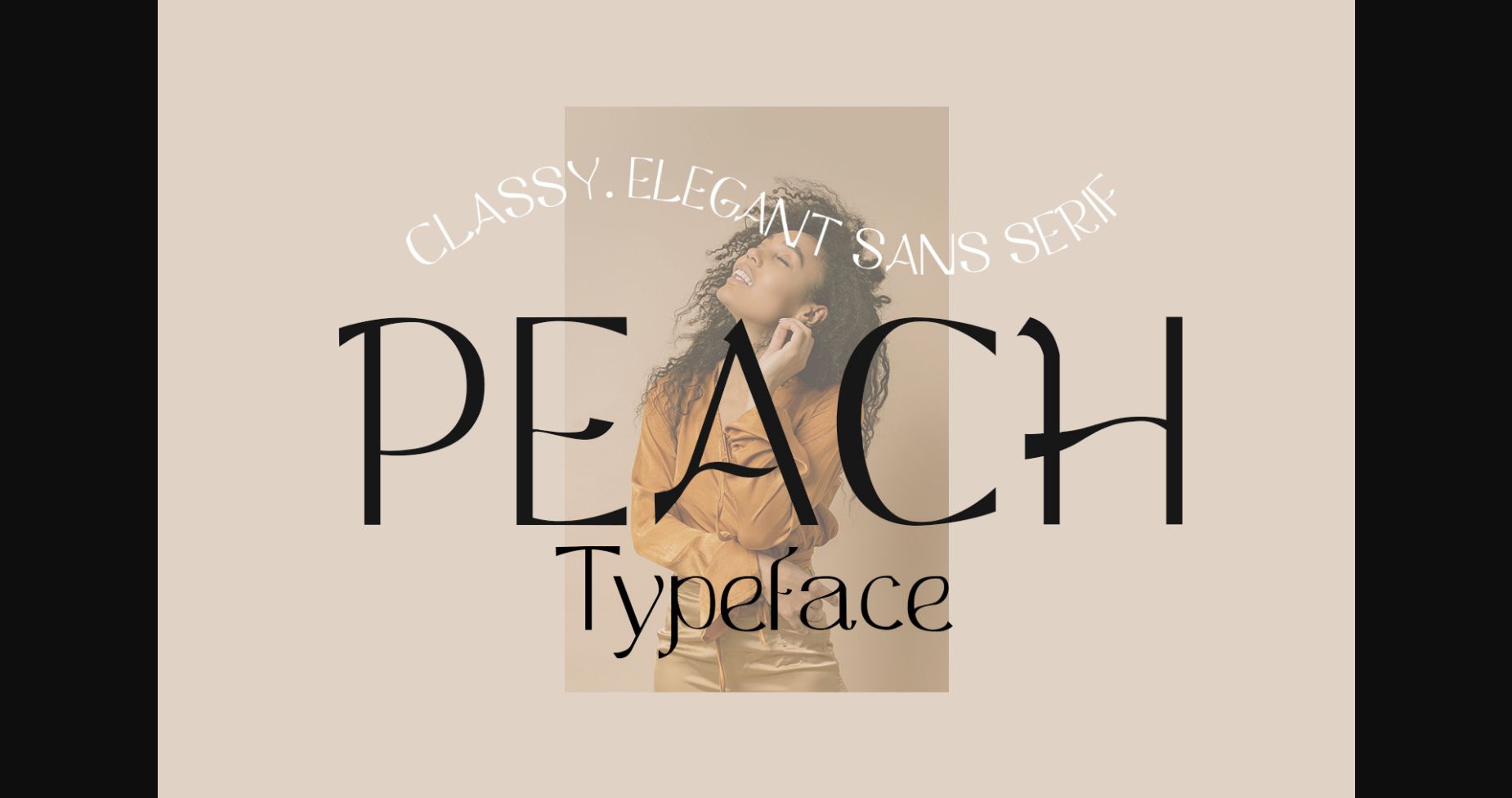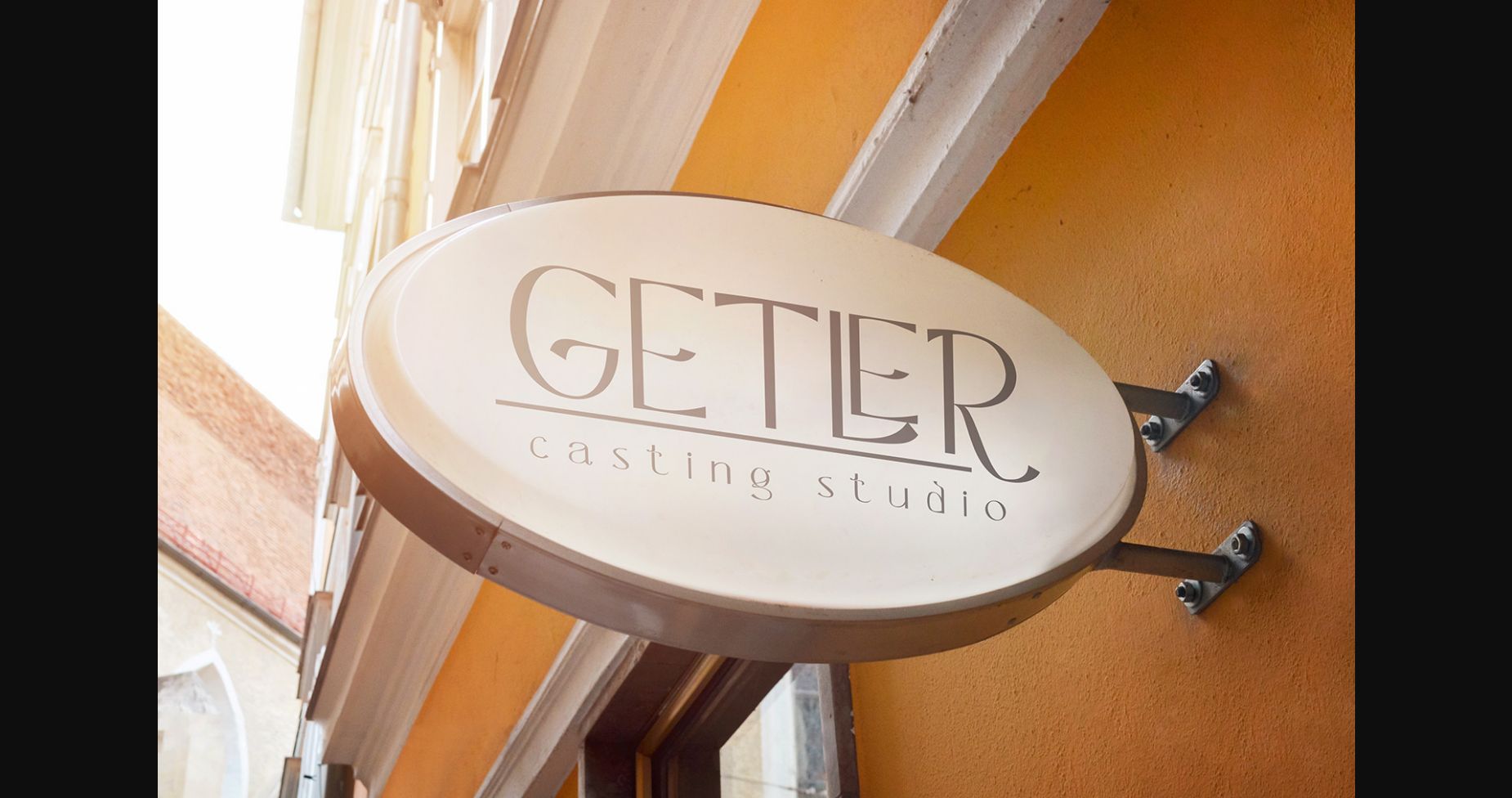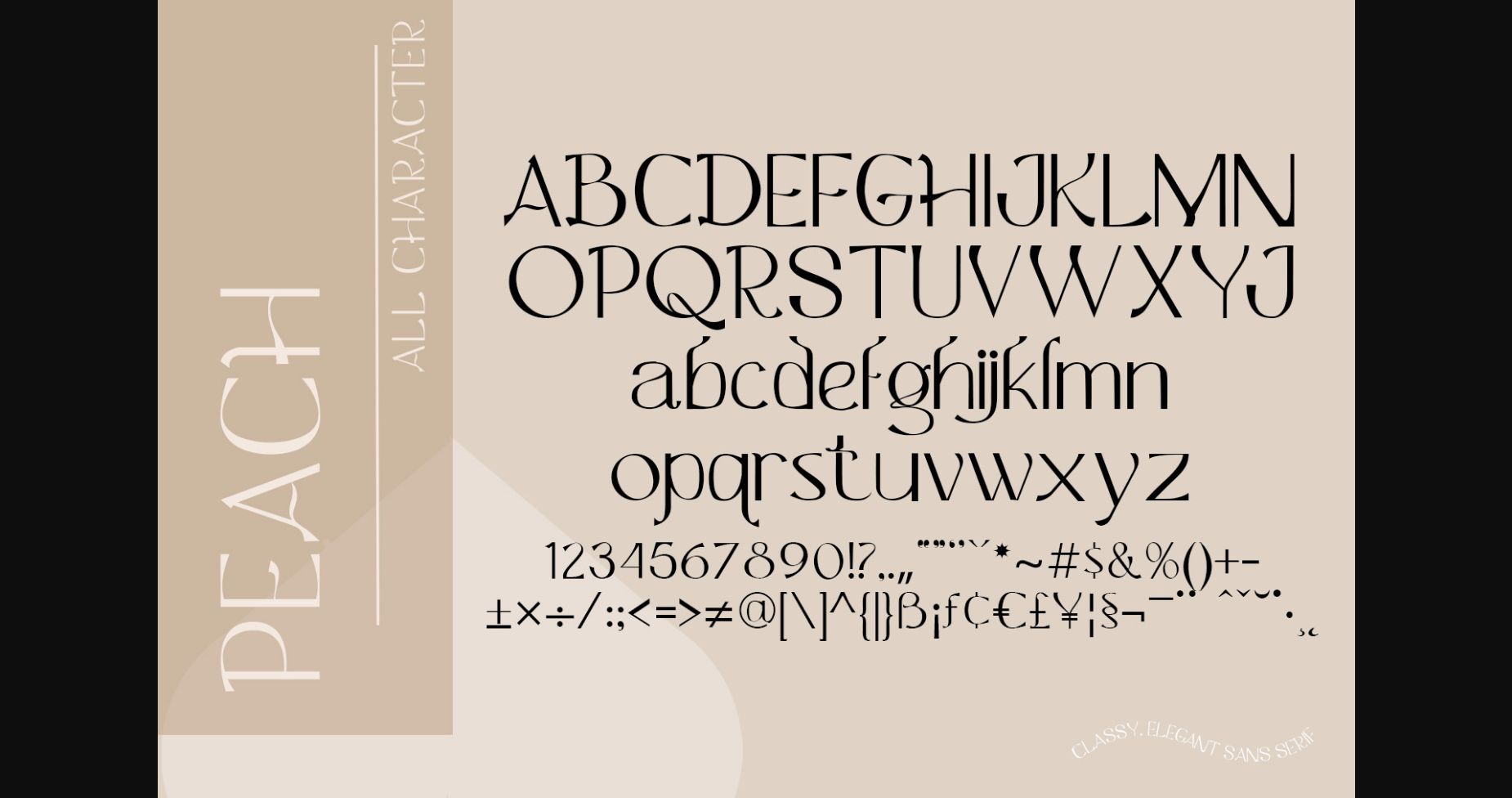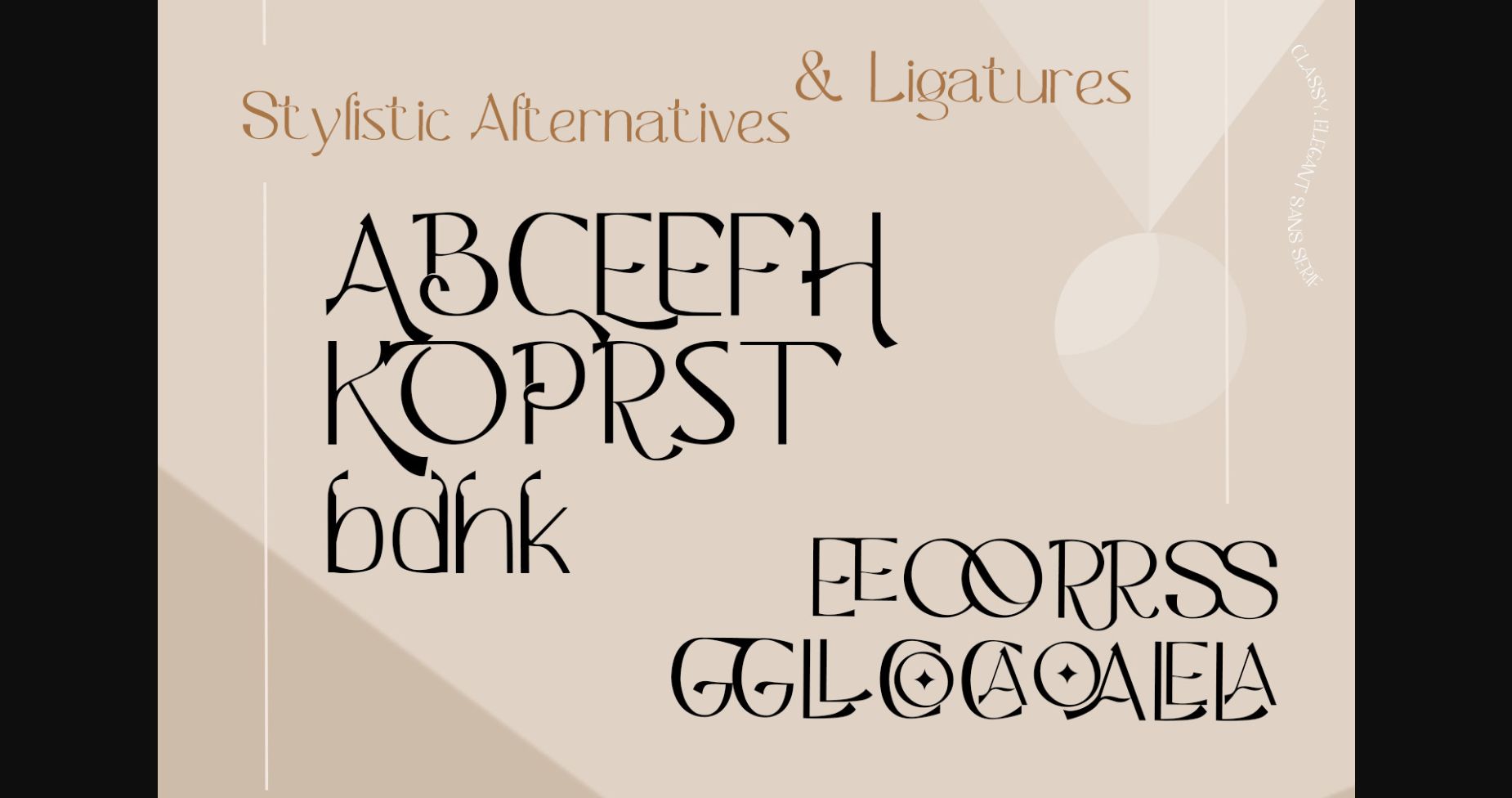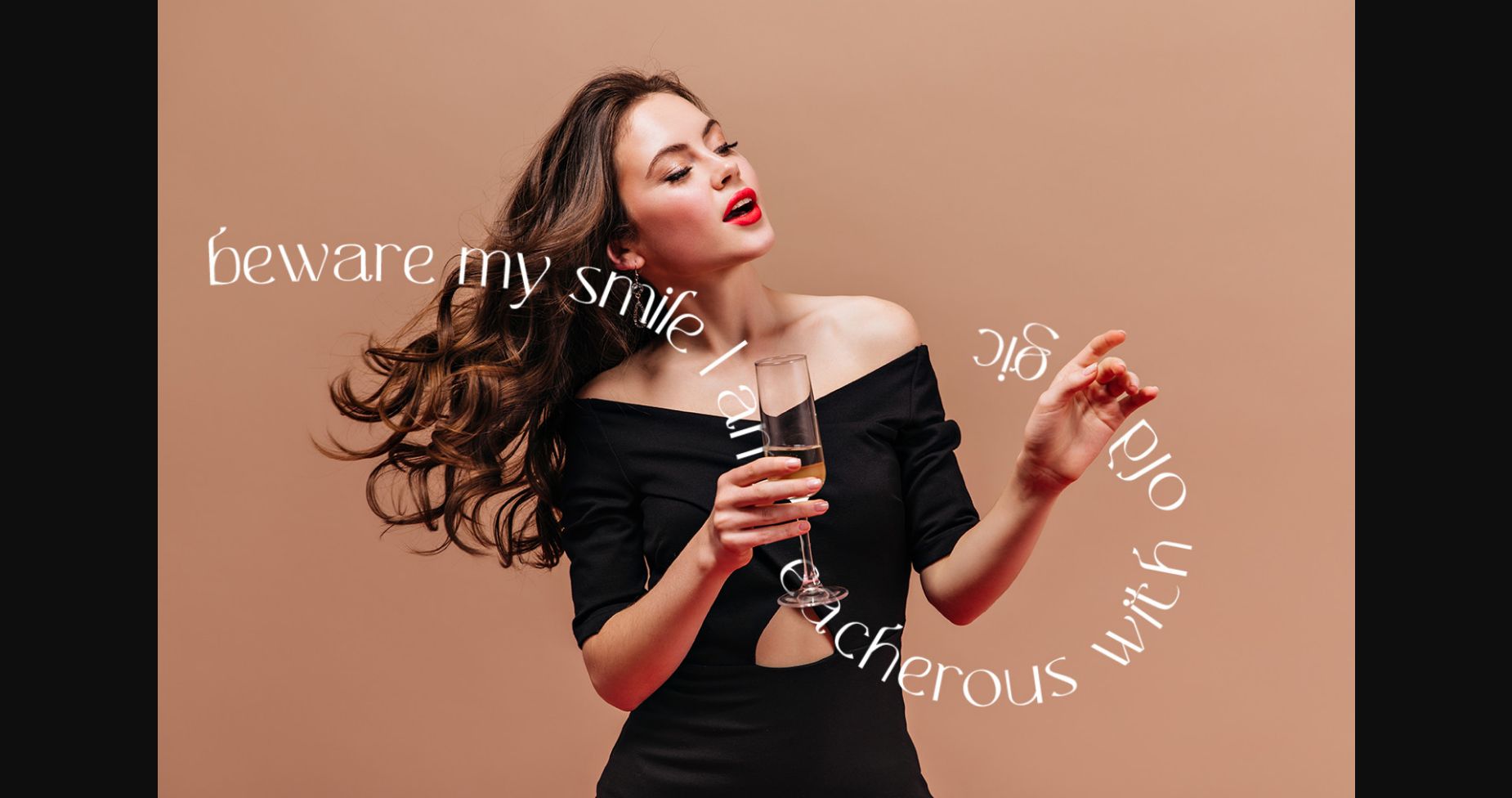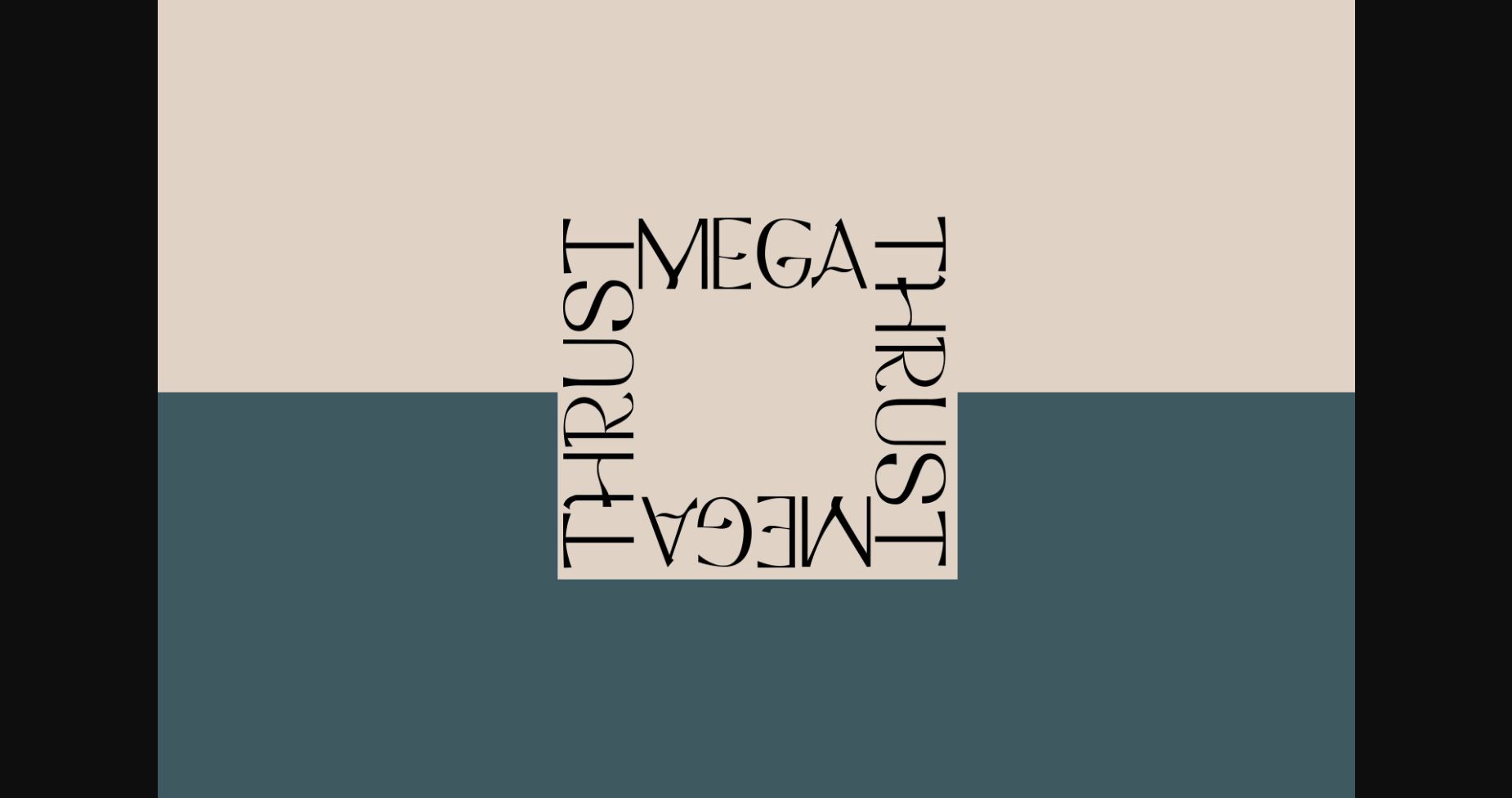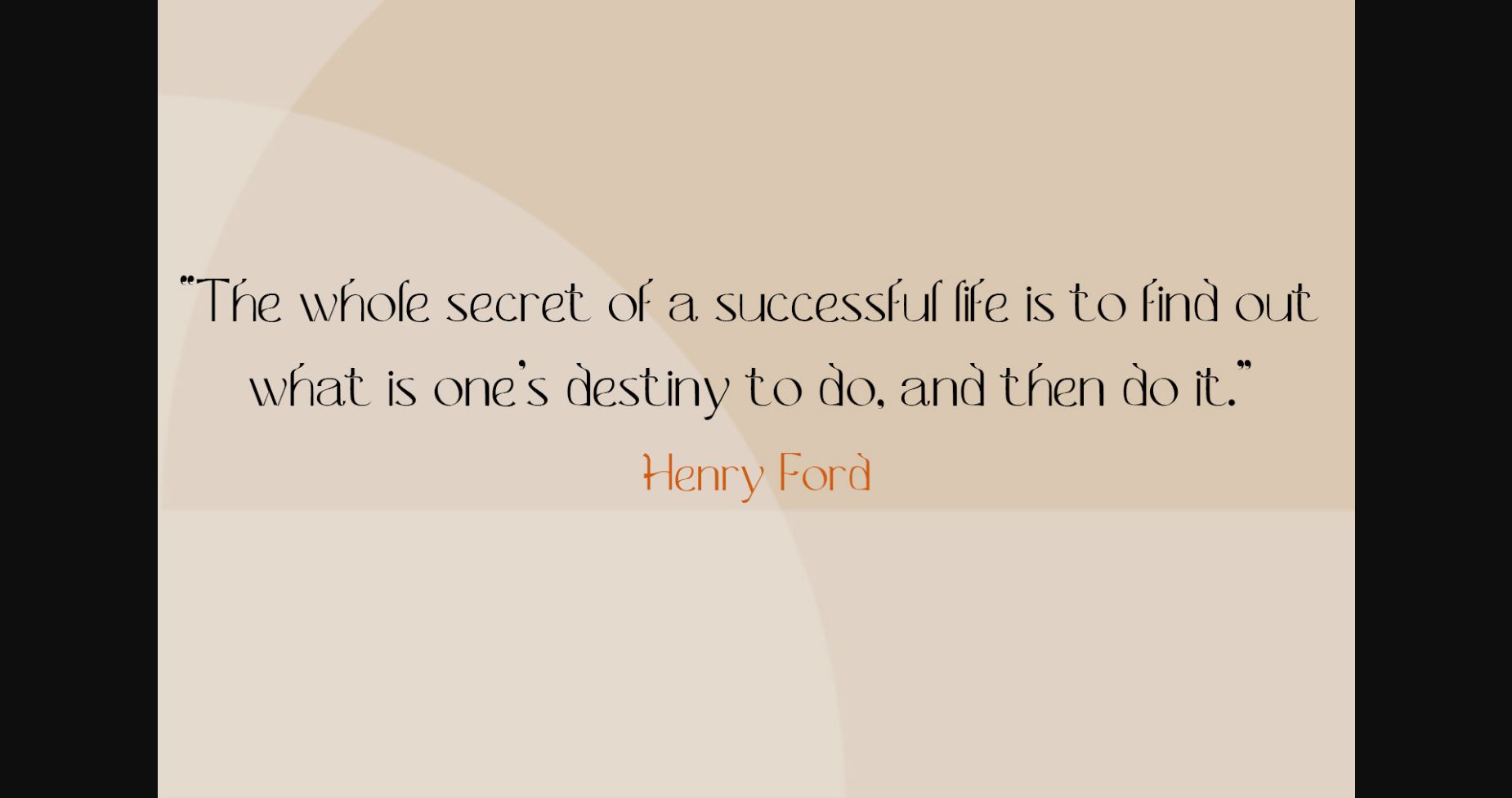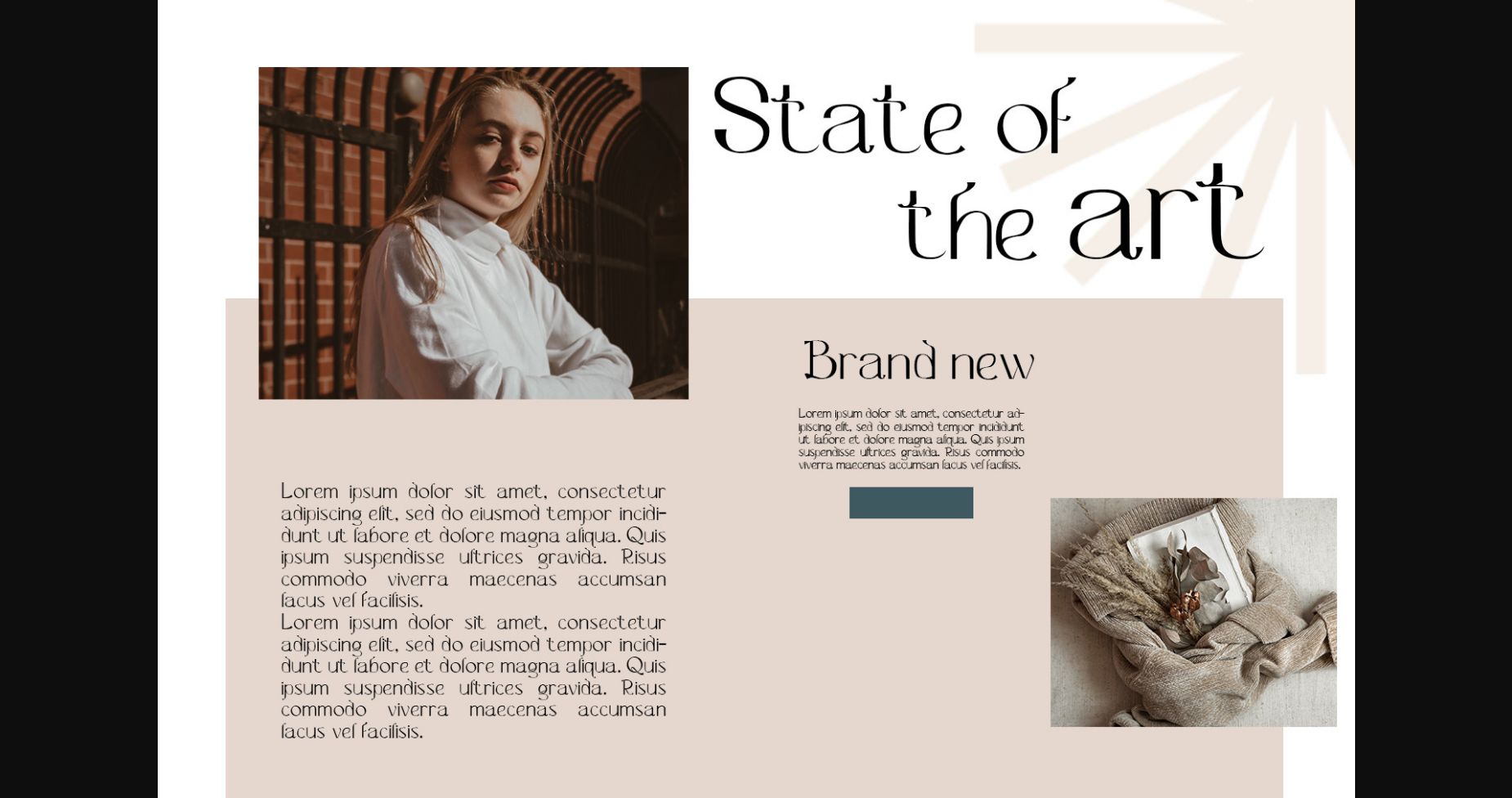
HomeSans Serif FontsPeach Font Sans Serif Fonts Peach Font FacebookXPinterestWhatsApp 1 of 10 ... Peach Font Poster 2... Peach Font Poster 3... Peach Font Poster 4... Peach Font Poster 5... Peach Font Poster 6... Peach Font Poster 7... Peach Font Poster 8... Peach Font Poster 9... Peach Font Poster 10... About Peach Font Peach is a clean, elegant and thin lettered sans serif font. It has a classy, elegant and modern look that can be used for logos, branding, invitations, stationery, wedding designs, social media posts, and much more! DOWNLOAD NOW People also explored My Castle Font Abraham Mahmudh Font Tigra Hands Up Font Amillia Font Real Delight Font Almode Font Cutesy Font Monstera Garden Font 311 0 TagsPeachPeach Font Previous articleJockin FontNext articleHot Summer Font LEAVE A REPLY Cancel reply Comment: Please enter your comment! Name:* Please enter your name here Email:* You have entered an incorrect email address! Please enter your email address here Website: Save my name, email, and website in this browser for the next time I comment. Personal Use Free Nouradilla Script Free Version Personal Use Free Read more about this font Nugo Sans Personal Use Free Read more about this font Baby Magnolia Personal Use Free Read more about this font Comic Caps Personal Use Free Read more about this font BLOG Free vs Paid Fonts: Why Investing in Premium Fonts Is Worth It Free vs Paid Fonts: Why Premium Fonts Are Worth It in 2025 The debate of free vs paid fonts continues in the design world. While... Best Fonts for YouTube Videos: Make Your Thumbnails Stand Out To increase your work productivity, choose the most readable fonts. How to Install and Use Fonts on Windows, macOS, and Web Projects